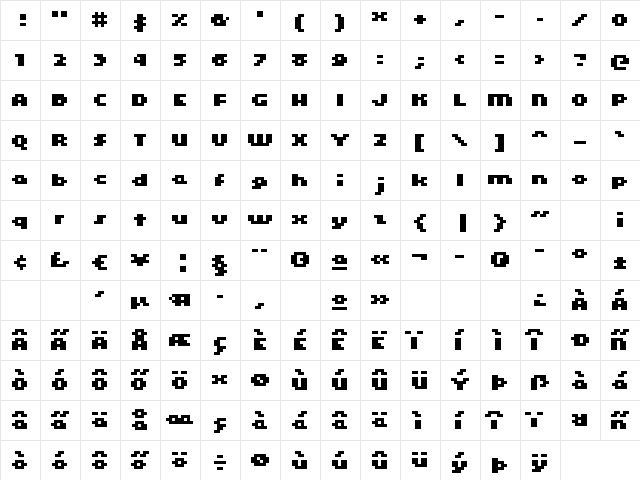
kroeger 04_66 Regular Font Preview
kroeger 04_66 Regular
Design Context for kroeger 04_66 Typeface
kroeger 04_66 is a composed and adaptable typeface that performs quietly and consistently across a wide range of design contexts.